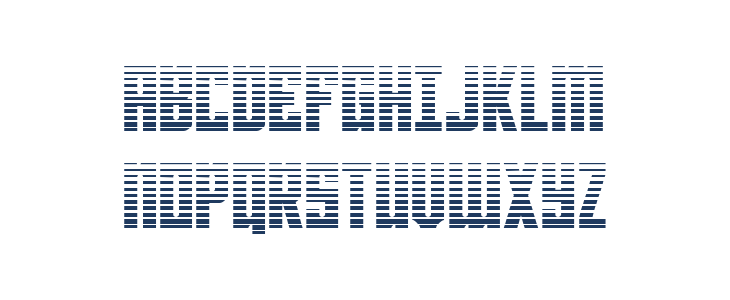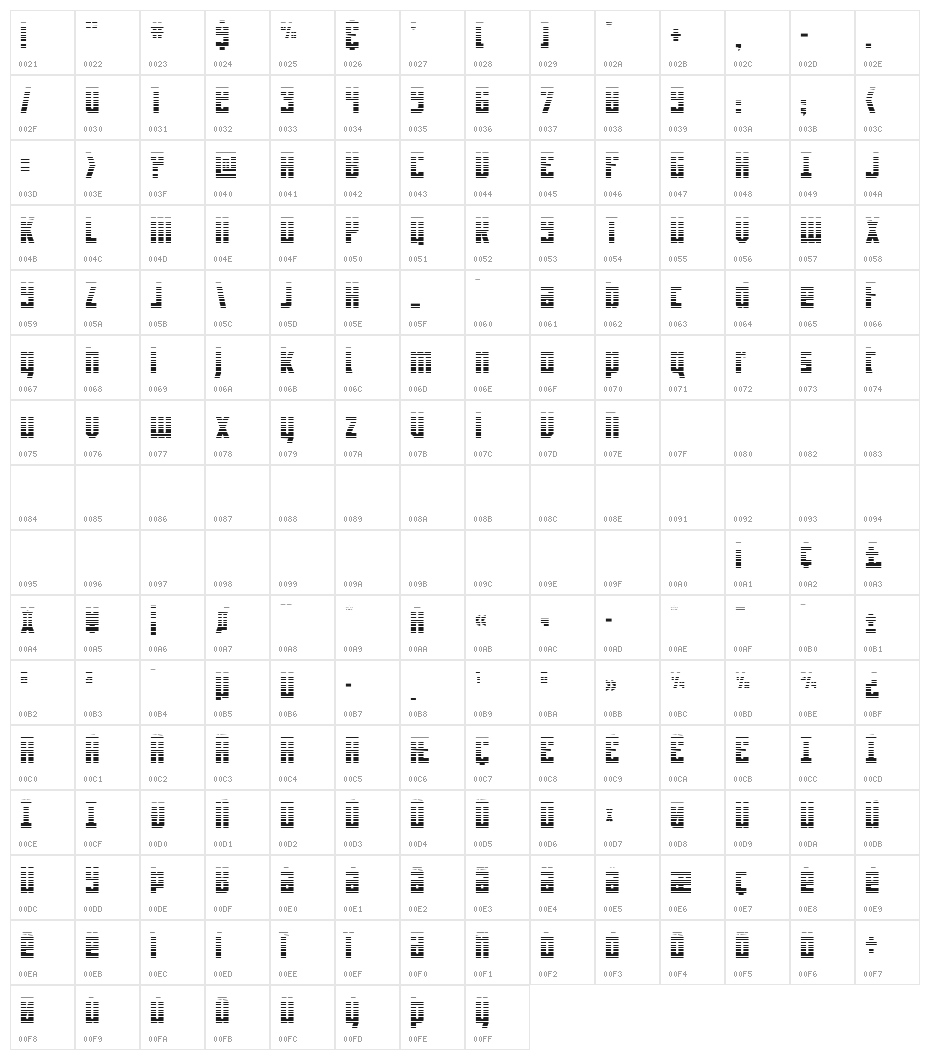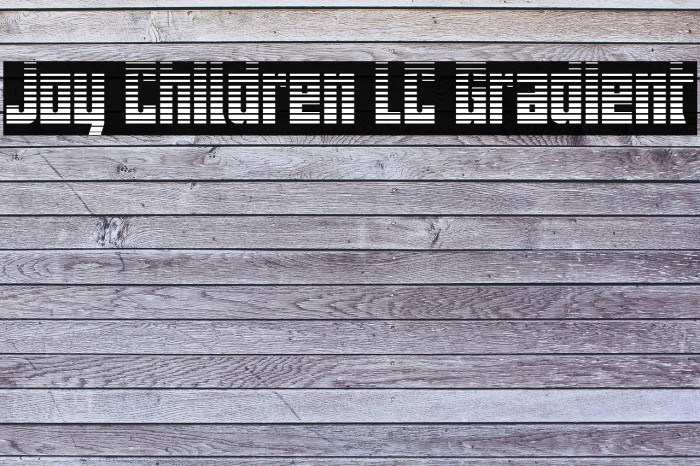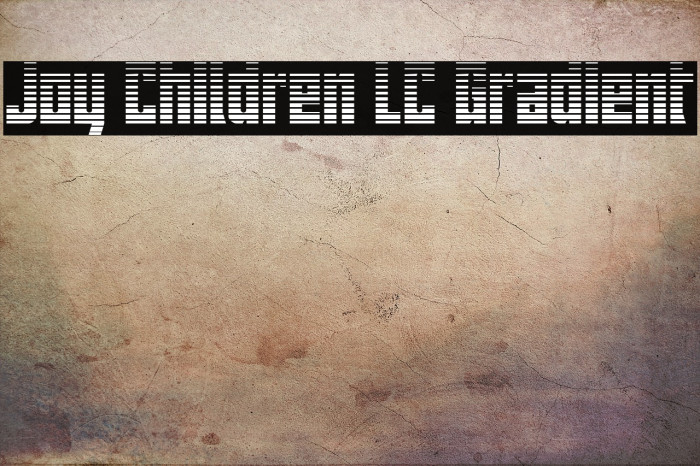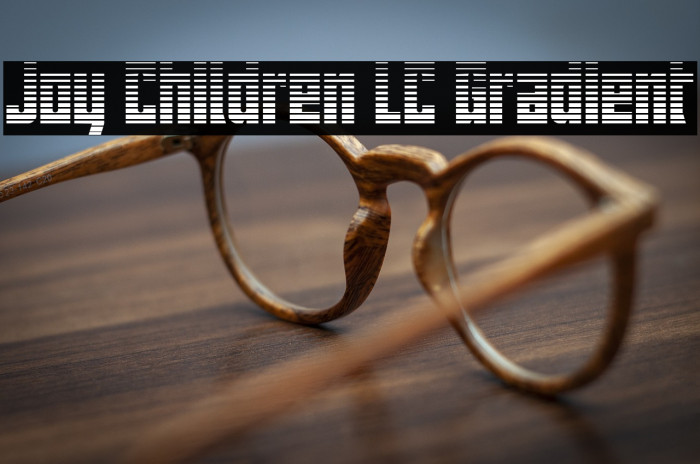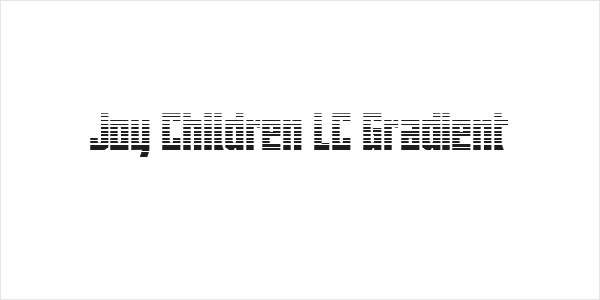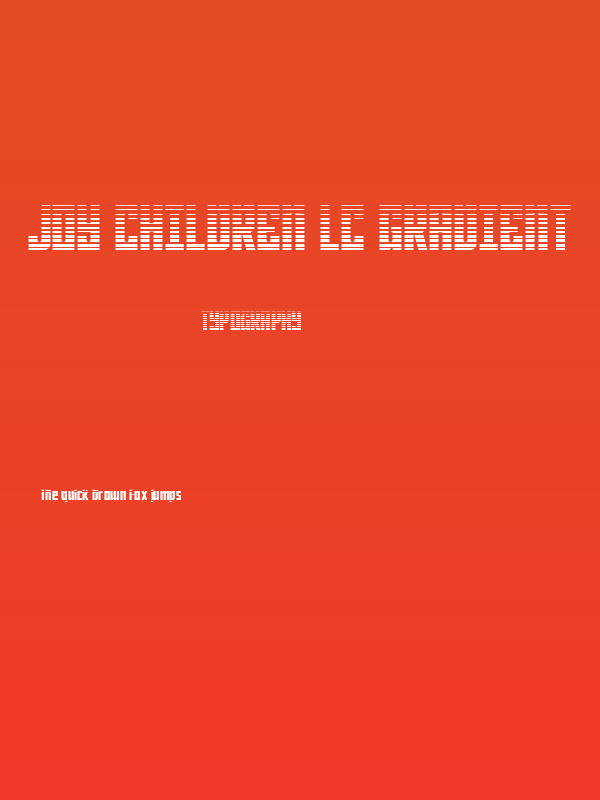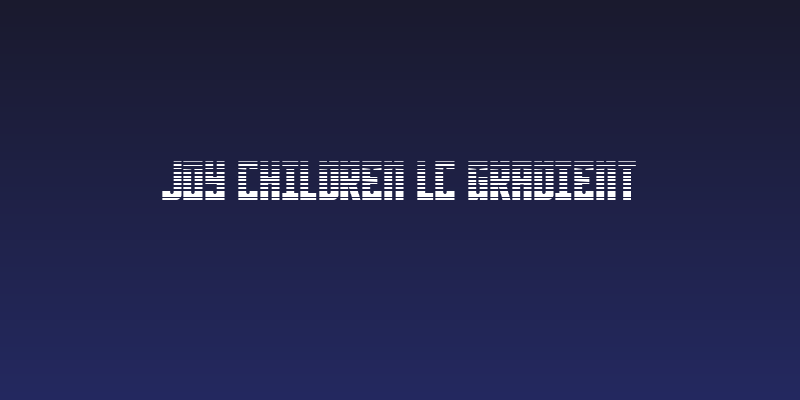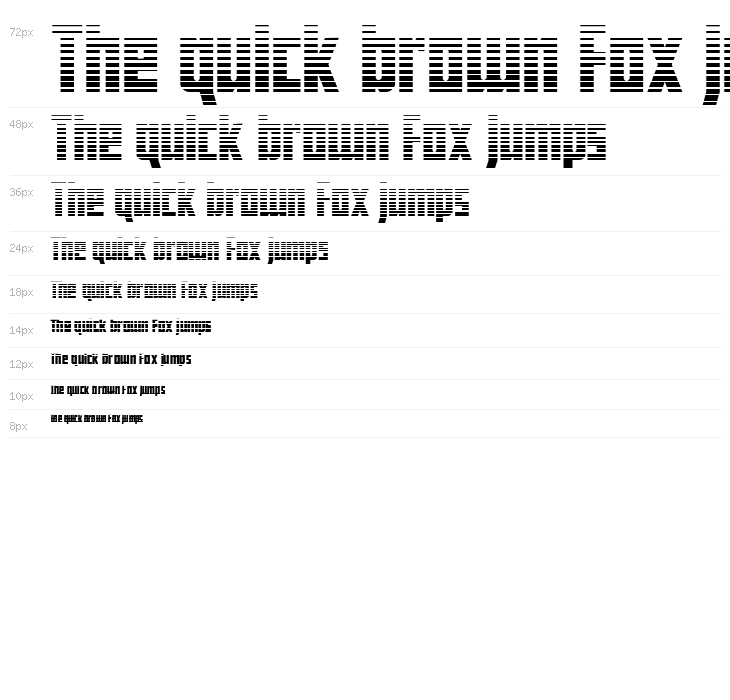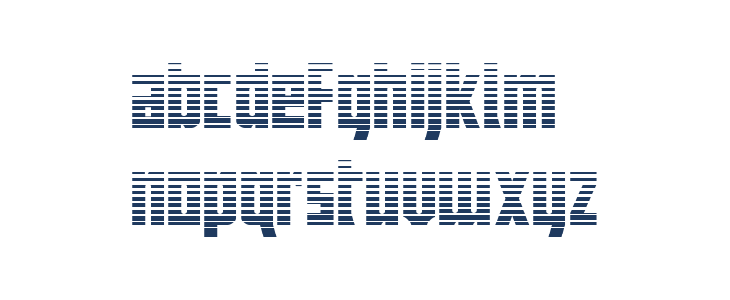
Joy Children LC Gradient Font
Joy Children LC Gradient Description
A geometric, striped, sans-serif font with horizontal lines forming the characters, giving a modern and technical appearance.
| Overall Style | Modern, Geometric |
| Use Case | Headlines, Digital interfaces, Logos |